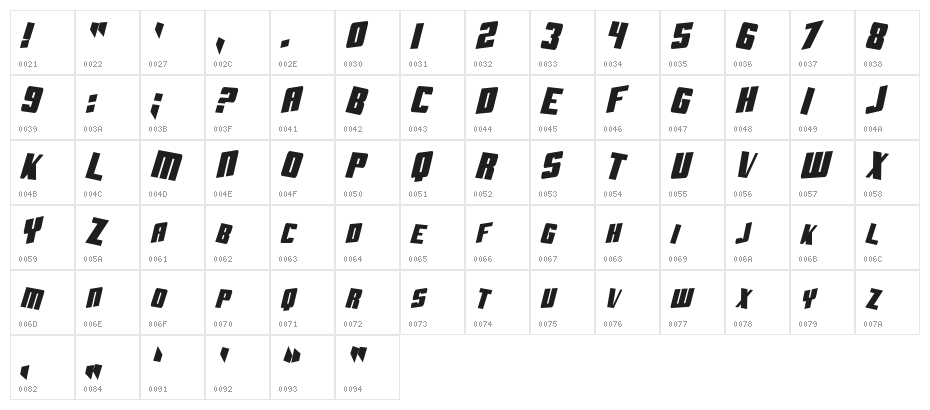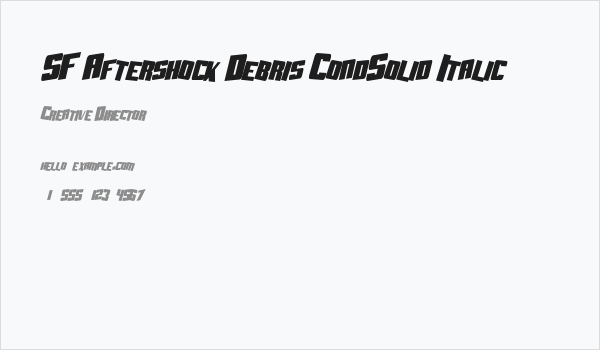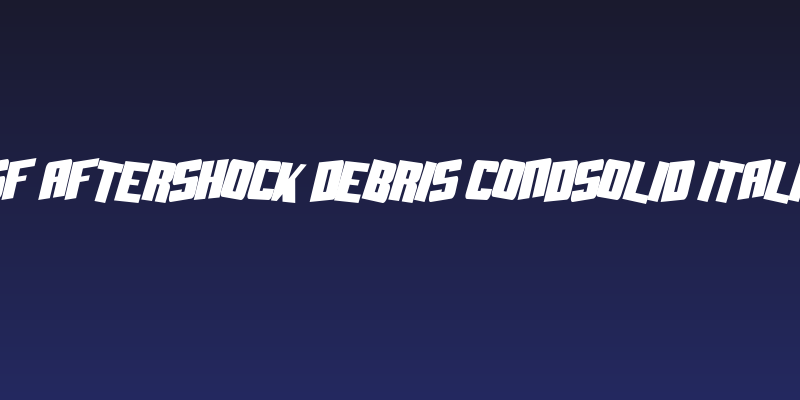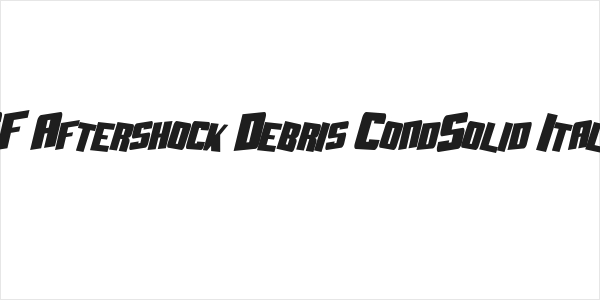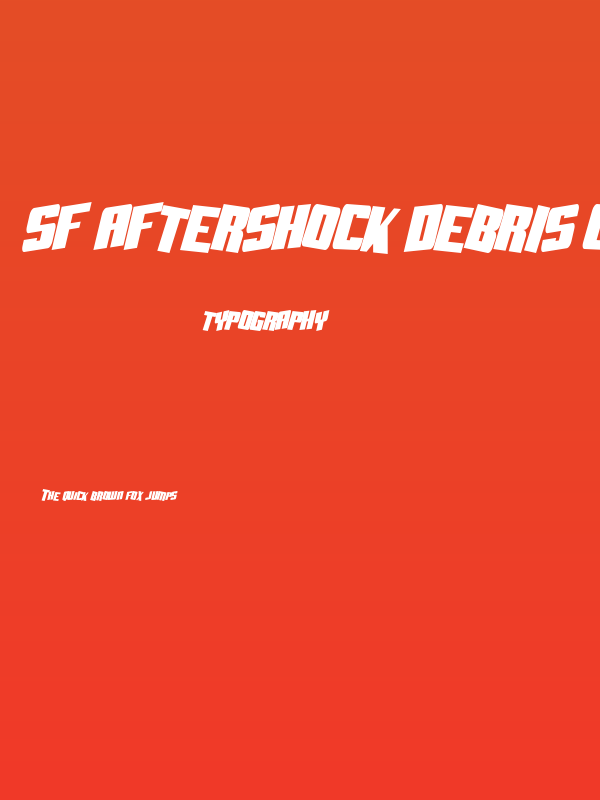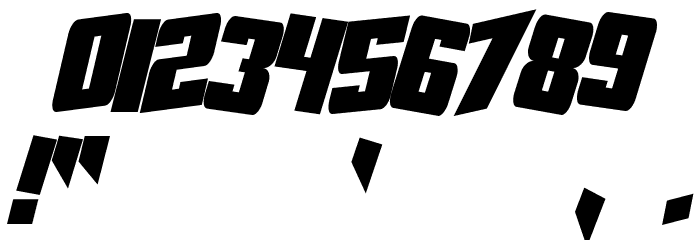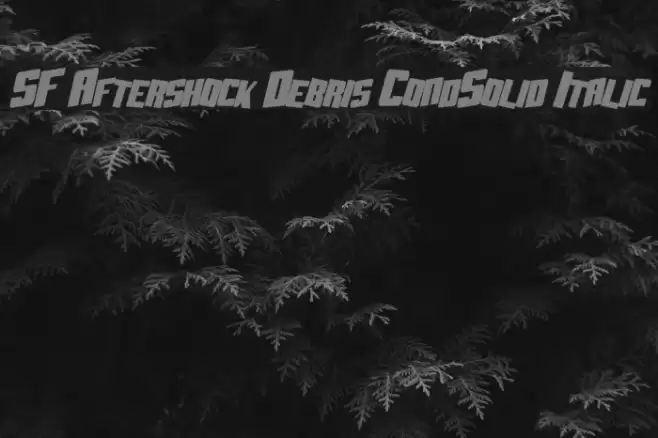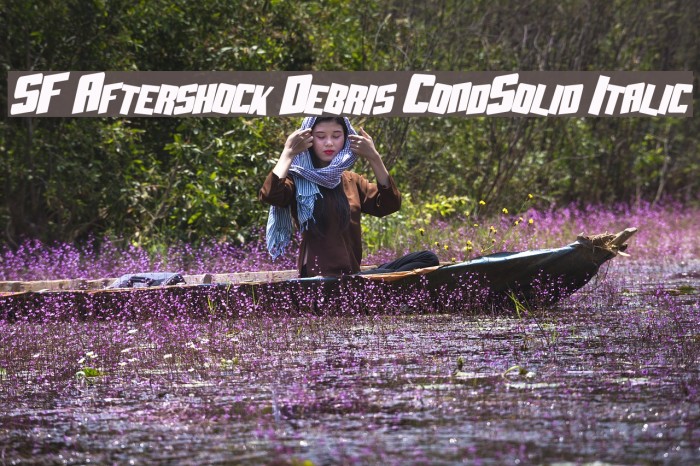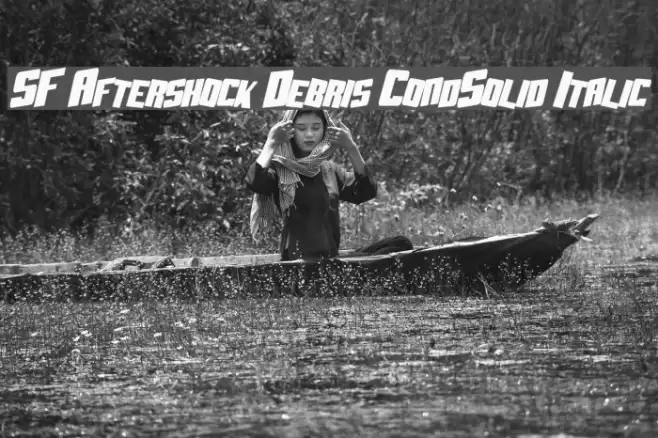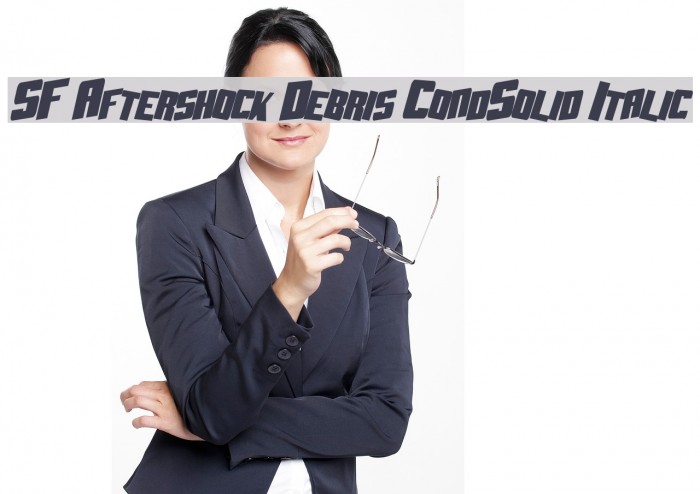
SF Aftershock Debris CondSolid Italic Font
SF Aftershock Debris CondSolid Italic Description
This font features a bold and dynamic design with a solid, condensed structure. The italicized style gives it a sense of movement and energy, making it ideal for attention-grabbing headlines. The characters are angular and geometric, with sharp edges and a slightly futuristic appearance. The uppercase letters are particularly striking, with a consistent slant that adds to the overall impact. The numbers and special characters maintain the same bold and angular aesthetic, ensuring a cohesive look across all text elements. The font's unique style makes it suitable for projects that require a modern and edgy feel.
| Proposed Projects | Ideal for posters, video game graphics, sports branding, and dynamic advertising campaigns. |